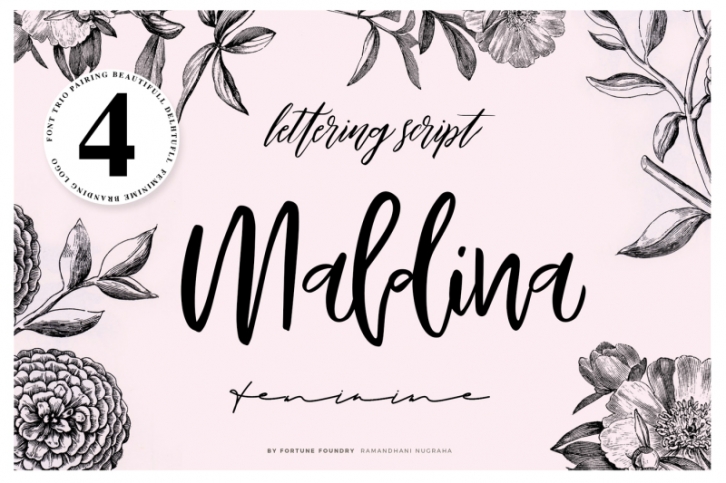
Maldina is 4 fonts pairing which is:
- Maldina Regular
- Maldina Script
- Block
- Signatra
Everyfonts is very subtle one by one, its perfect match. You will love it all.